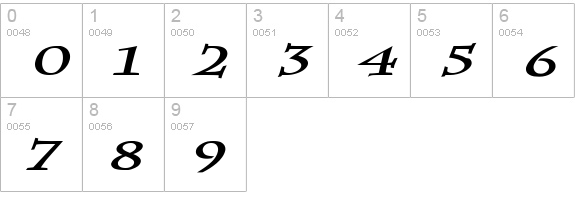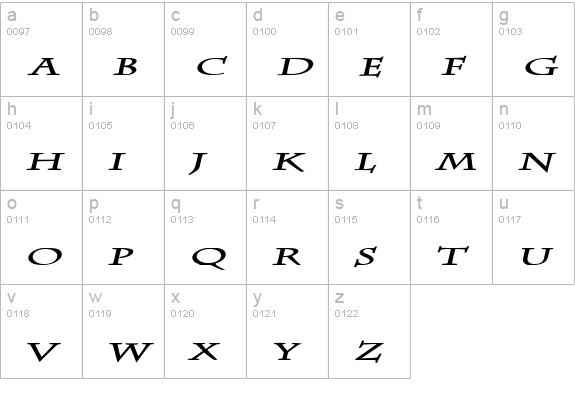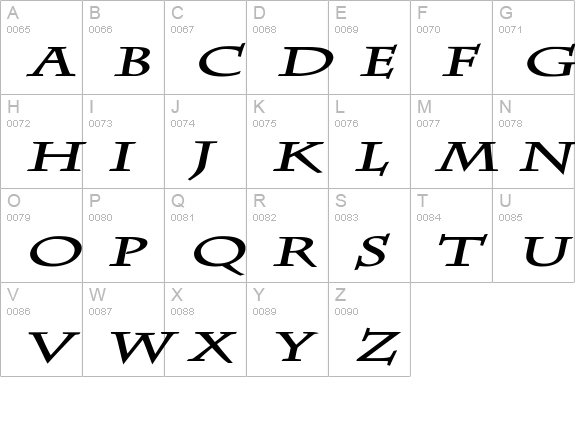
Chaz Extended Bold Italic Font Details
Chaz Extended Bold Italic is a strong, high-contrast, extended-width, italic variant in the Chaz typeface family \xE2\x80\x94 well suited to headlines, attention-grabbing titles, and strong calls-to-action.
Chaz Extended Bold Italic font is a striking and dynamic typeface that exudes a sense of modernity and sophistication. Its bold and italic design makes it perfect for adding emphasis and style to your projects. The sleek and contemporary look of Chaz Extended Bold Italic font makes it ideal for a wide range of design applications, from branding to editorial design. What makes Chaz Extended Bold Italic font even more appealing is that it is available for free download at FontsMarket.com. This means that you can easily access this high-quality font without any cost, making it a valuable addition to your design toolkit. Don't miss out on the opportunity to elevate your projects with the bold and stylish Chaz Extended Bold Italic font - download it for free today!